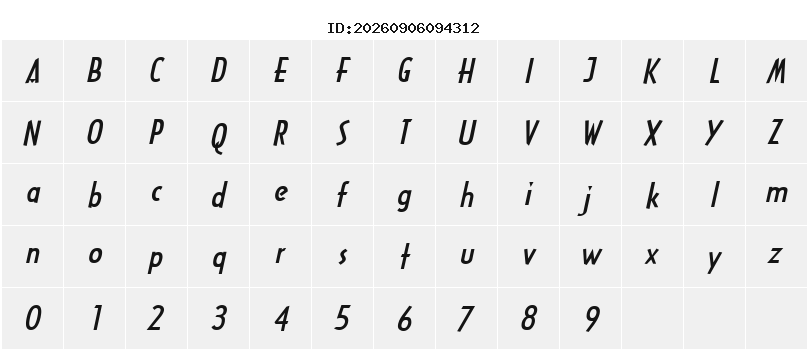
Tech-Extended Preview
• Font Name: Tech-Extended
• Font ID: Alts:Tech-Wide Bold Italic
• Full Font Name: Tech-Extended Bold Italic
• Version: 1.0/1995: 2.0/2001
• PostScript Name: Tech-Wide-BoldItalic
• Character Count: 217
About Tech-Extended.ttf
Tech-Extended.ttf is a modern, elegant sans-serif font designed for ultimate readability and visual harmony. Perfect for branding, headlines, web design, and print materials.